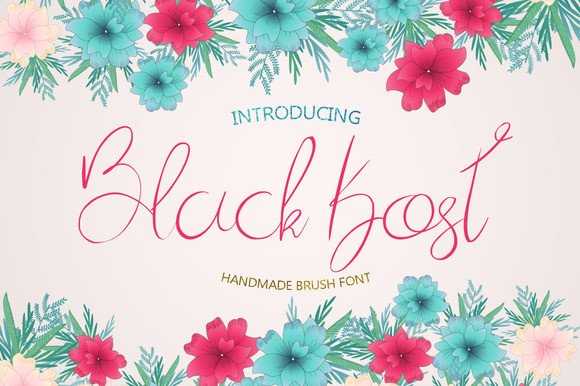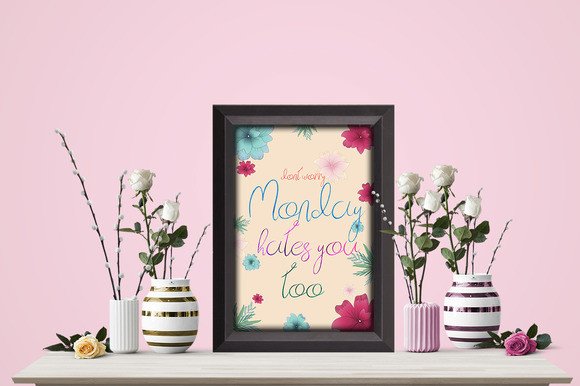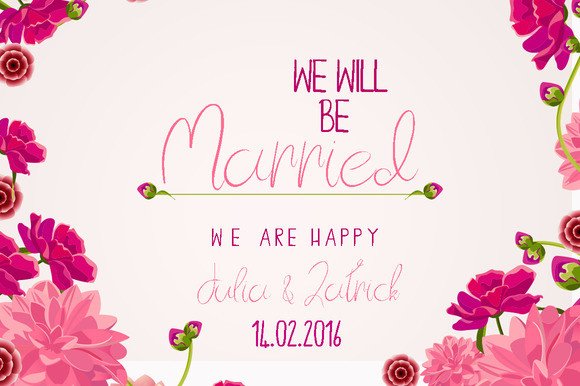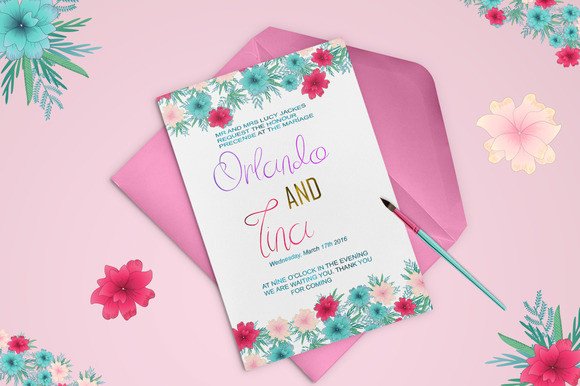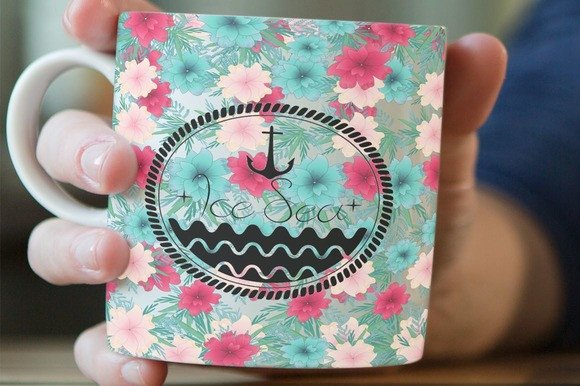
Black Kost Font
Blackkost is a beautiful handmade brush font. Perfect for designing invitations, greeting cards, branding materials, business cards, quotes, posters, and more!